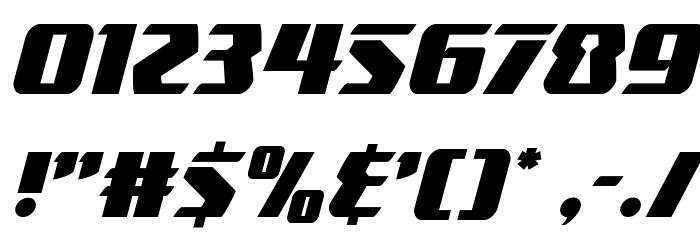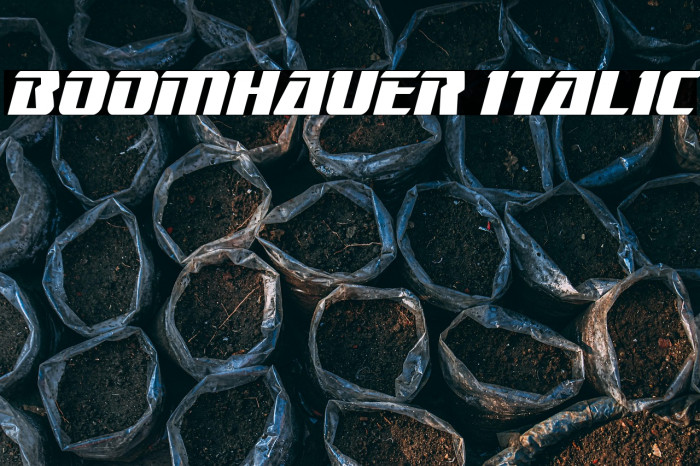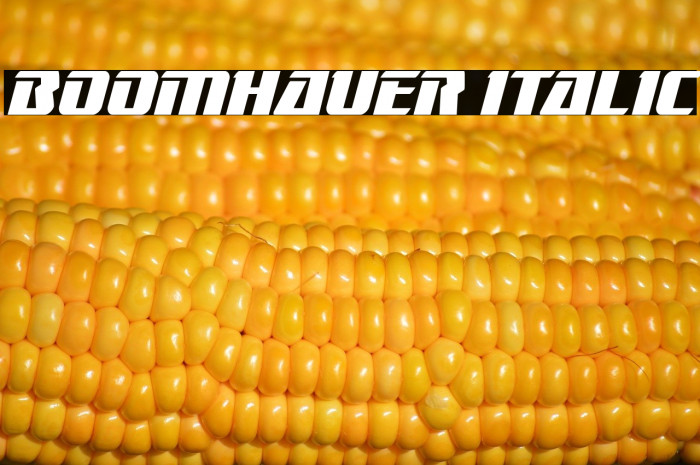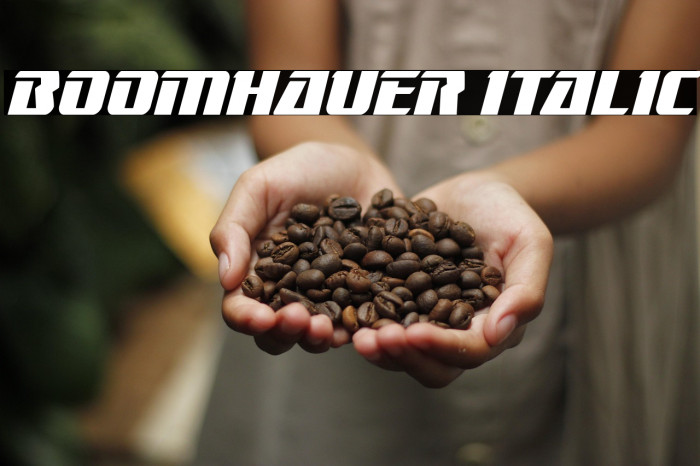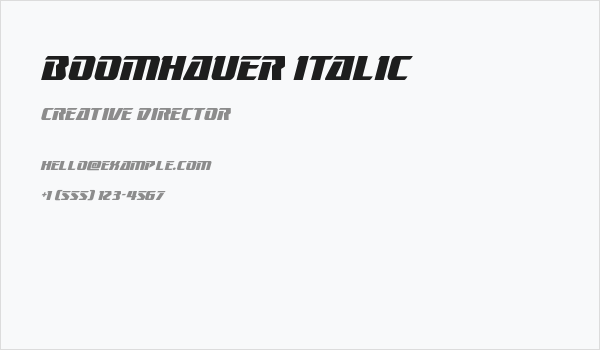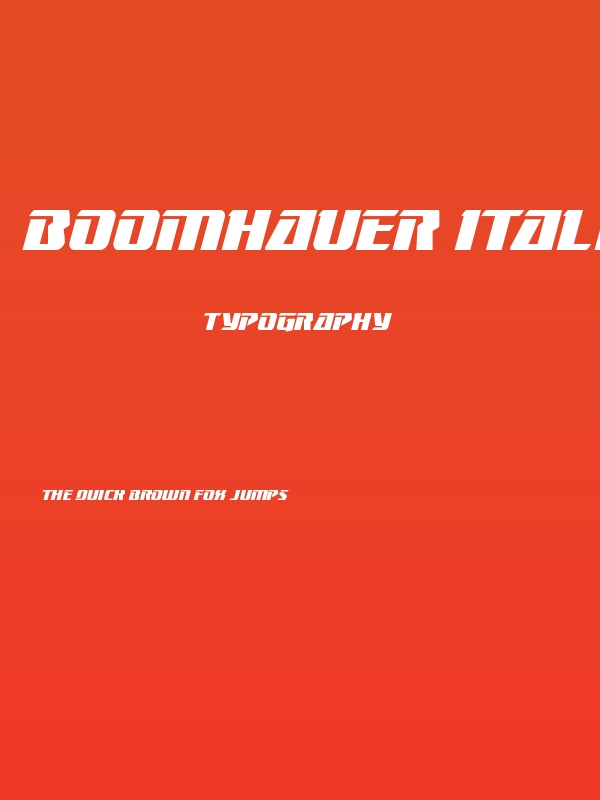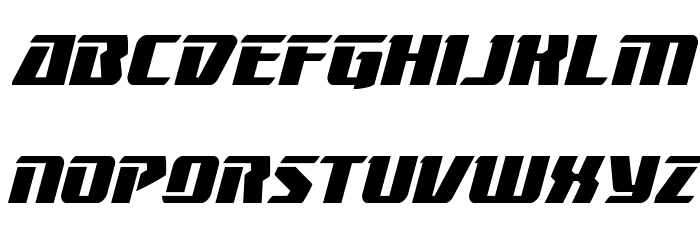
Boomhauer Italic Font
Boomhauer Italic Description
This font features a bold and dynamic style with a strong italic slant, giving it a sense of motion and energy. The characters are blocky and angular, with sharp edges and a futuristic appearance. The uppercase and lowercase letters maintain a consistent height, contributing to a uniform look. The numerals are equally bold, matching the overall aesthetic of the alphabet. Special characters are designed with the same angular and bold characteristics, ensuring a cohesive appearance across all glyphs.
| Proposed Projects | Ideal for projects that require a modern and dynamic look, such as sports branding, video game titles, or tech-related logos. |